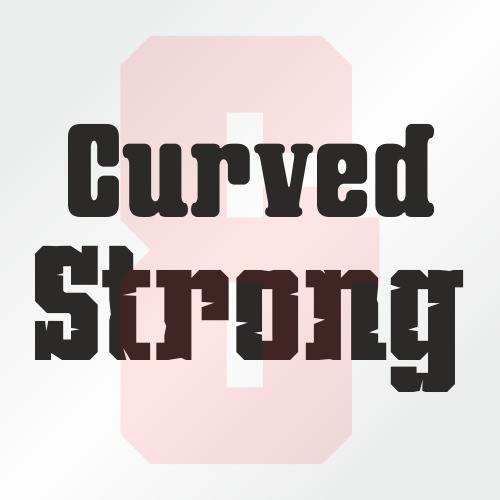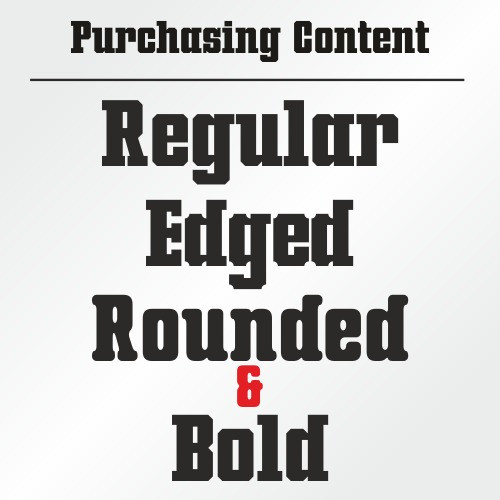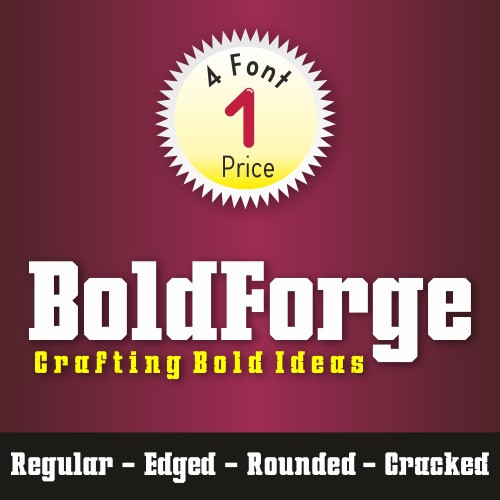
BoldForge Font
BoldForge Font is a striking and robust typeface crafted by Mehmet Abacı, designed to make a bold statement in any visual medium. Its commanding presence and industrial-inspired design make it a versatile choice for headlines, posters, and branding.
BoldForge stands out with its strong geometric lines and a heavy, impactful weight. The font seamlessly balances modern aesthetics with a touch of vintage charm, making it suitable for various applications, from editorial design to digital media. Its multilingual support includes a wide array of characters, diacritics, and symbols, ensuring global accessibility. Whether you’re creating a logo, crafting attention-grabbing headlines, or designing packaging, BoldForge offers the versatility and style you need to make an unforgettable impression.